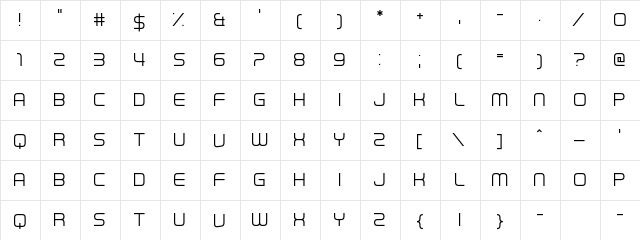
First In Line Regular
| Designer | NAL |
Design Context for First In Line Typeface
First In Line takes a measured approach to typography — its balanced proportions and neutral character make it a reliable workhorse for both digital and print work.